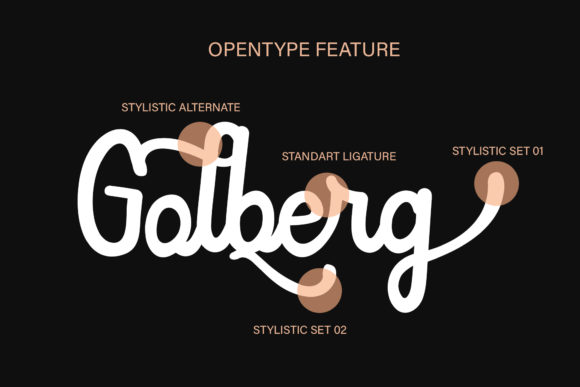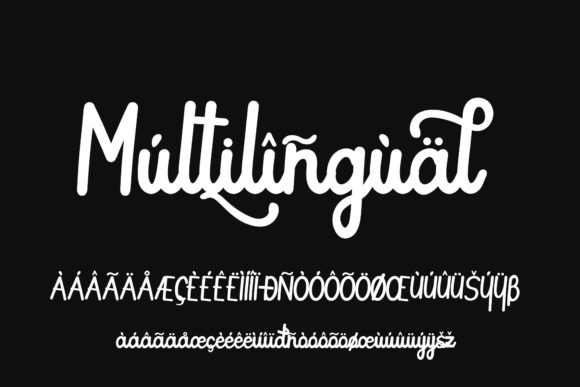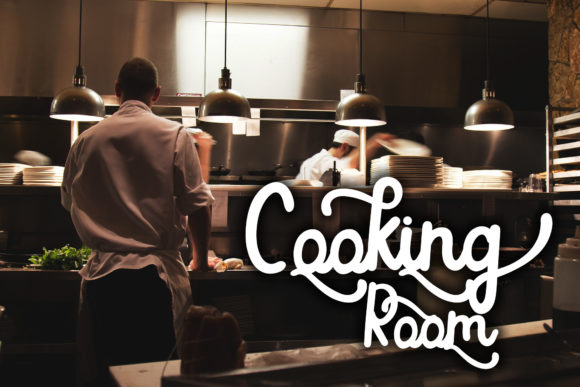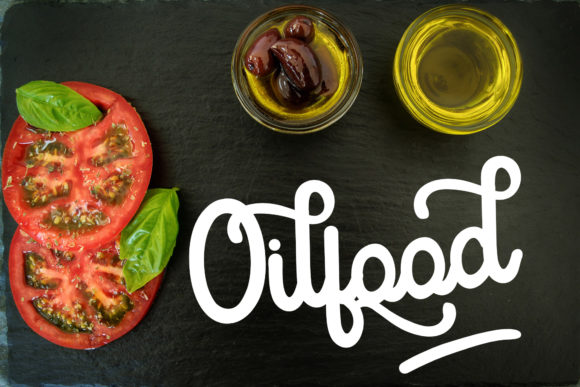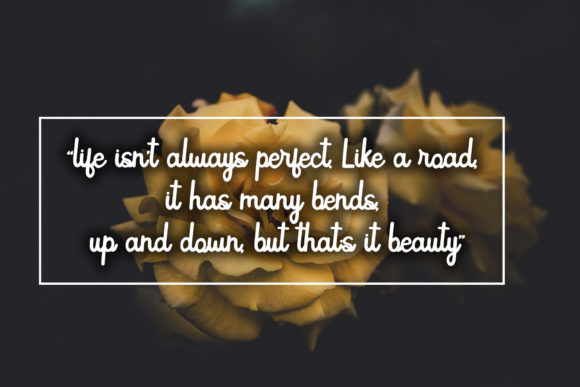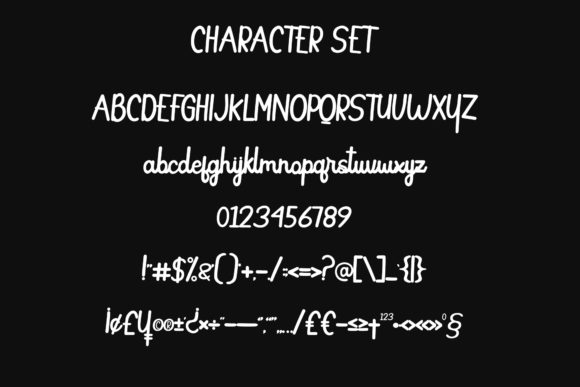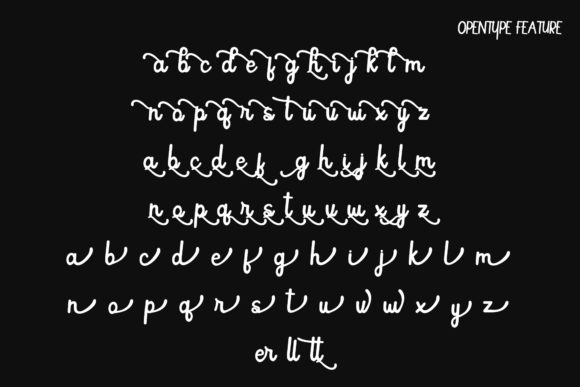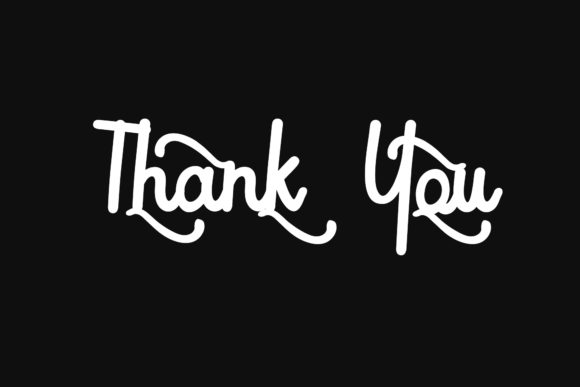
HomeScript FontsButterfly Font Script Fonts Butterfly Font FacebookXPinterestWhatsApp Butterfly Font Poster 2 Butterfly Font Poster 3 Butterfly Font Poster 4 Butterfly Font Poster 5 Butterfly Font Poster 6 Butterfly Font Poster 7 Butterfly Font Poster 8 Butterfly Font Poster 9 About Butterfly Font Butterfly is a flowing and elegant handwritten font. Get inspired by its contemporary coolness! DOWNLOAD NOW People also explored Sirius Font Bouquet Font Kawaii Sweets Font Nagara Font Black Butter Font Beautiful Font Asthacy Reny Font Hafala Font Sheilla Font 315 0 TagsButterfly Font Previous articleRomantic Stories FontNext articleAnderisa Font LEAVE A REPLY Cancel reply Comment: Please enter your comment! Name:* Please enter your name here Email:* You have entered an incorrect email address! Please enter your email address here Website: Save my name, email, and website in this browser for the next time I comment. Personal Use Free Baby Magnolia Personal Use Free Read more about this font Yumail Personal Use Free Read more about this font Cokobi Personal Use Free Read more about this font Earwig Factory Personal Use Free Read more about this font BLOG 5 Fonts That Will Dominate Design Trends in 2026 5 Fonts for 2026 That Will Dominate Design Trends Typography plays a critical role in visual communication, and as we look ahead to 2026, it’s... Best Fonts for T-Shirt Design – Top 2025 Picks Exploring Font Trends Top 10 Handwritten Fonts That Elevate Your Designs